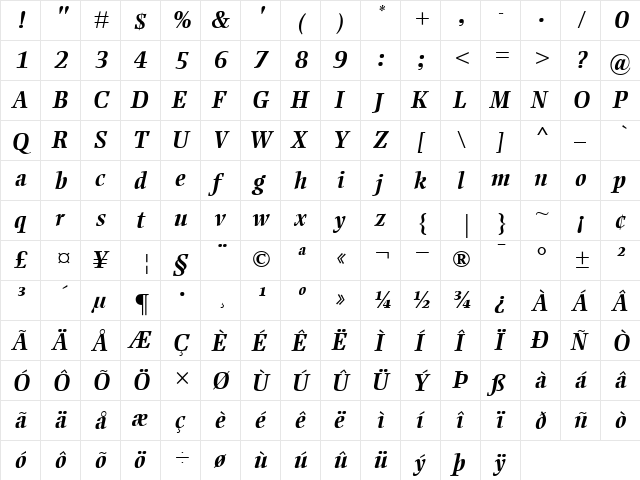
EllingtonMT BoldItalic Font Preview
EllingtonMT BoldItalic
EllingtonMT BoldItalic Font Details
Design Context for EllingtonMT Typeface
EllingtonMT is a composed and adaptable typeface that performs quietly and consistently across a wide range of design contexts. The slanted form adds forward momentum and visual energy. The heavy weight commands attention and anchors typographic hierarchies.
Pro Tip: Use EllingtonMT for emphasis, pull quotes, and subheadings where its slanted energy can add rhythm to the layout.